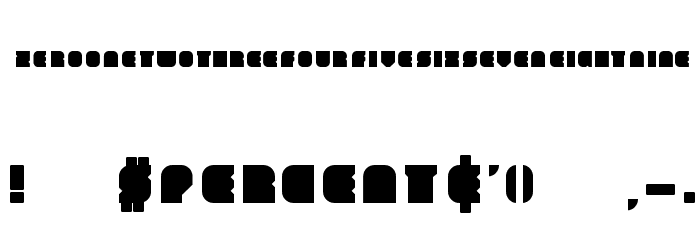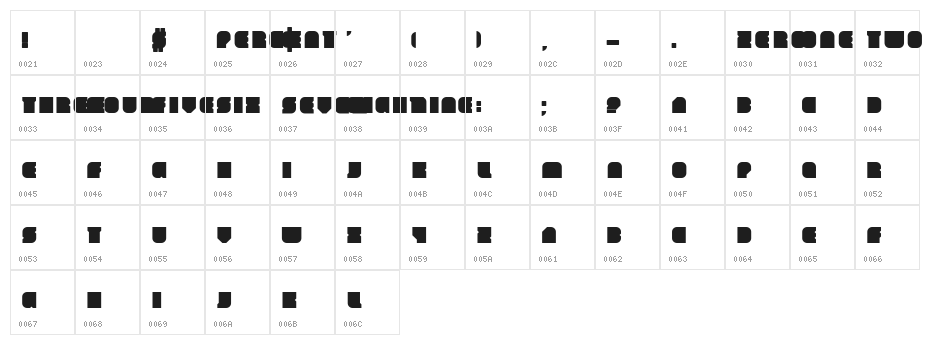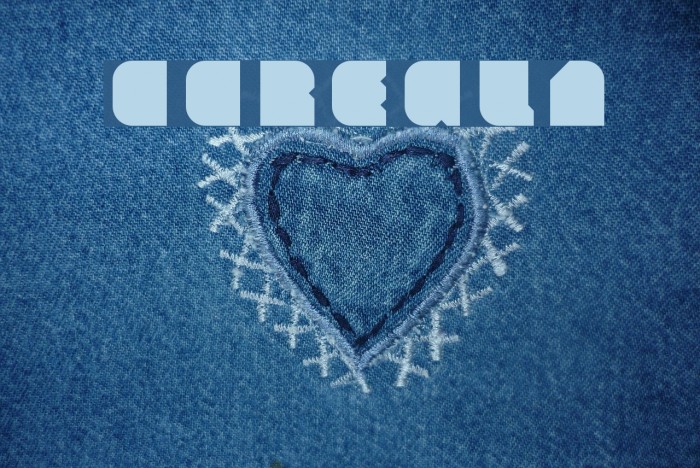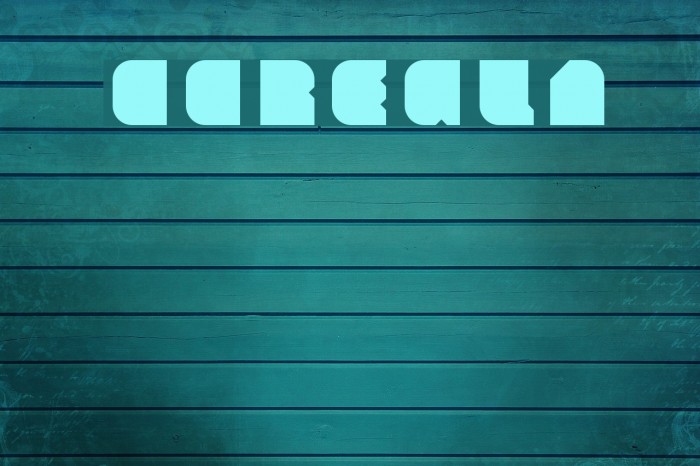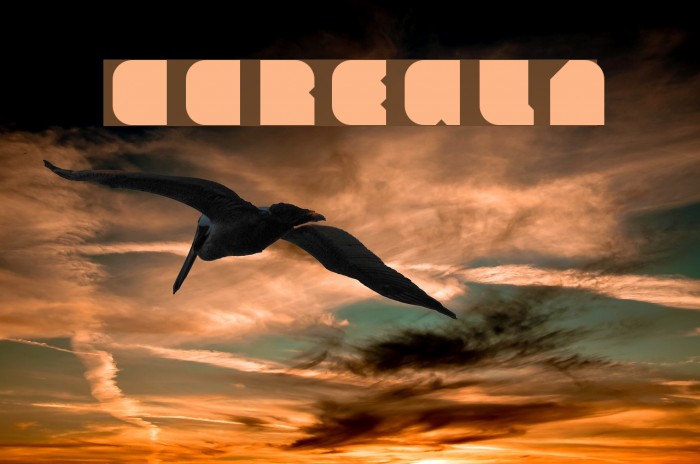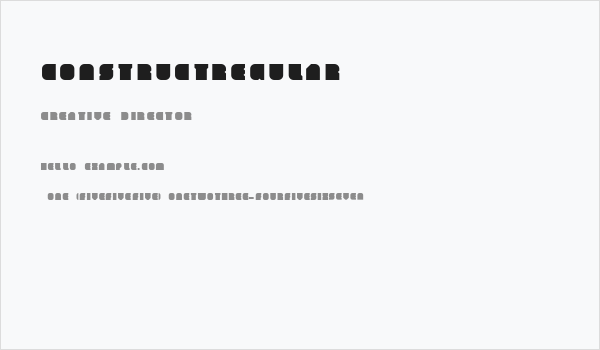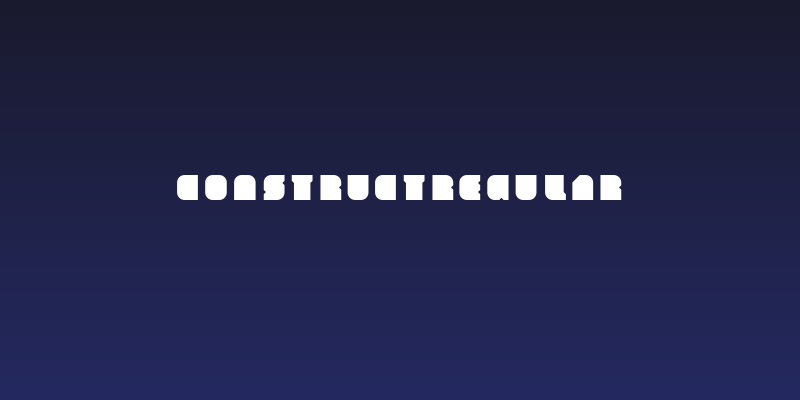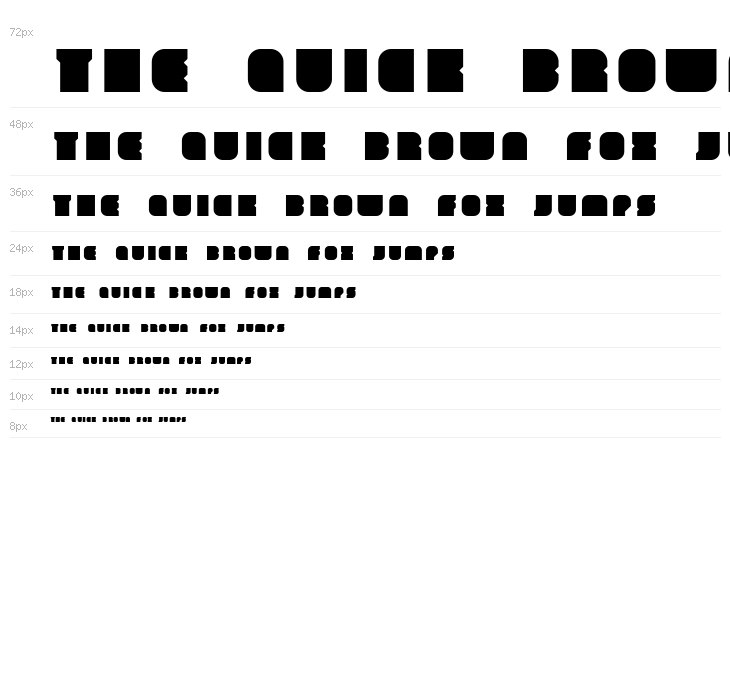
ConstructRegular Font
ConstructRegular Description
This font features a bold, geometric design with a strong emphasis on block-like shapes. Each character is constructed with sharp angles and a uniform thickness, creating a cohesive and modern appearance. The uppercase and lowercase letters maintain a consistent style, with minimal differentiation in height, contributing to a monospaced feel. Numbers and special characters follow the same geometric pattern, ensuring visual harmony across all elements. The font's distinct style makes it highly suitable for attention-grabbing designs, where a contemporary and assertive look is desired.
| Proposed Projects | Ideal for modern branding, poster designs, and digital media where a strong visual impact is needed. |